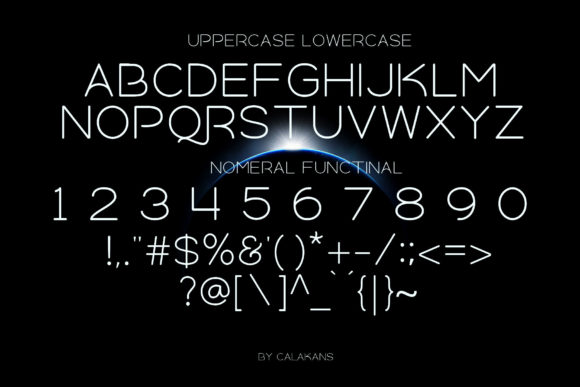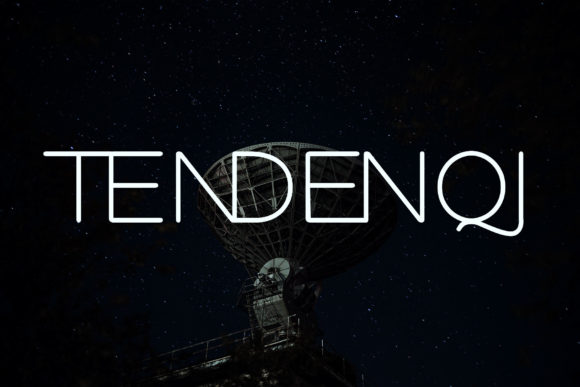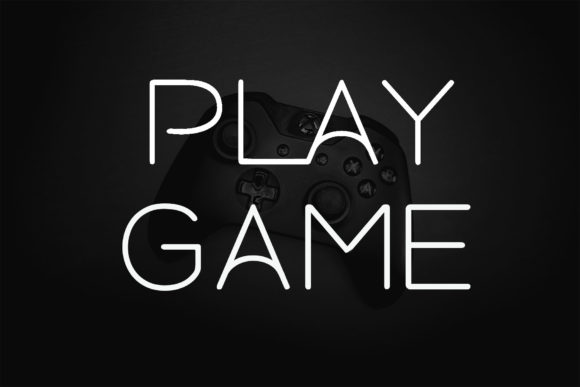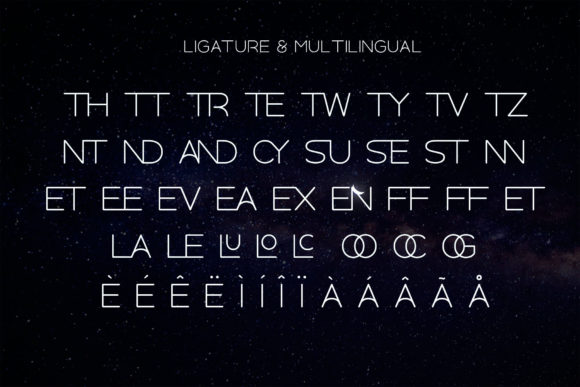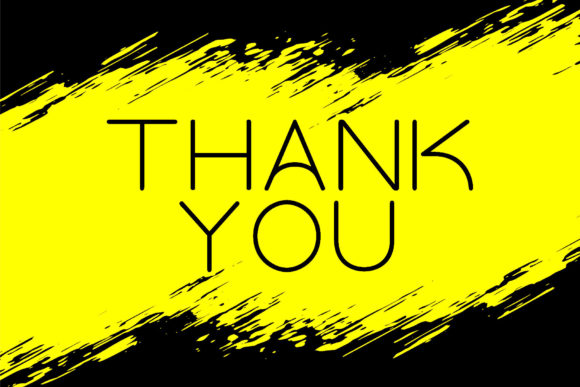
The Perfect Blend of Style and Functionality
As designers, we’ve all been there – staring at a blank canvas, trying to bring our creative vision to life. The blank page can be intimidating, but it’s also an opportunity to start fresh and explore new ideas. For me, that moment of inspiration often comes when I stumble upon a font that perfectly captures the essence of my project. Recently, I discovered the Arthos Font, and it’s been a game-changer for my designs.
The Arthos Font is a sleek, modern sans serif font that effortlessly adapts to a wide range of projects. Its clean lines and minimalist aesthetic make it a versatile choice for anything from tech startups to fashion brands. As designers, we’re always on the lookout for fonts that can elevate our work and make it stand out. The Arthos Font is a valuable addition to any design toolkit, and I’m excited to share why.
Key Features of Arthos Font
- Unique Characteristics: The font features a unique blend of modern and traditional elements, making it perfect for creative and professional projects.
Arthos Font Review
Overall, I’m quite impressed with the Arthos Font. It has a unique, modern aesthetic that works well in various design contexts. ✨ I particularly like the subtle curves and geometric shapes that give it a futuristic feel.
Here are some strengths of the Arthos Font:
- Highly legible and clear, making it perfect for body text.
- Great for digital interfaces, logos, and titles.
- Supports a wide range of languages, making it a great option for international projects.
- Works well in both print and digital formats.
However, I do have some reservations about the Arthos Font:
- ⚠️ It can feel a bit sterile and lacks personality in certain contexts.
- ⚠️ Some users might find the font too futuristic or overwhelming.
- ⚠️ The font’s design can make it challenging to read in very small sizes.
Overall, I think the Arthos Font is a solid choice for designers looking for a modern, legible font. While it may not be perfect for every project, it’s definitely worth considering for digital interfaces, logos, and titles.
Tips for Getting the Most Out of Arthos Font
Here are some tips for using Arthos Font effectively:
- Use Arthos Font for headings and titles to add a touch of sophistication.
- Pair Arthos Font with a clean and simple font for body text.
Arthos Font is perfect for:
- Designing luxury branding materials.
- Creating high-end marketing materials.
- Adding a touch of elegance to digital presentations.
Alternatives to Arthos Font
Monserrat Font is a sans-serif typeface designed by Julieta Ulanovsky. It is a modern and clean font perfect for digital design, particularly for titles and headings. Montserrat is a great choice for designers who want a font with a strong urban feel. It is more geometric and structured compared to Arthos Font, making it ideal for designs that require a sense of order and precision.
Inter Font is a sans-serif typeface designed by Rasmus Andersson. It is a highly legible and versatile font suitable for various design projects, including digital and print materials. Inter Font is a more neutral and minimalist font compared to Arthos Font, making it a great choice for designs that require a clean and simple aesthetic. It is ideal for use in titles, body text, and even for coding.
Open Sans Font is a sans-serif typeface designed by Steve Matteson. It is a modern and highly legible font perfect for digital design, particularly for body text and titles. Open Sans Font is a more friendly and approachable font compared to Arthos Font, making it ideal for designs that require a sense of warmth and approachability. It is also highly versatile and suitable for various design projects.